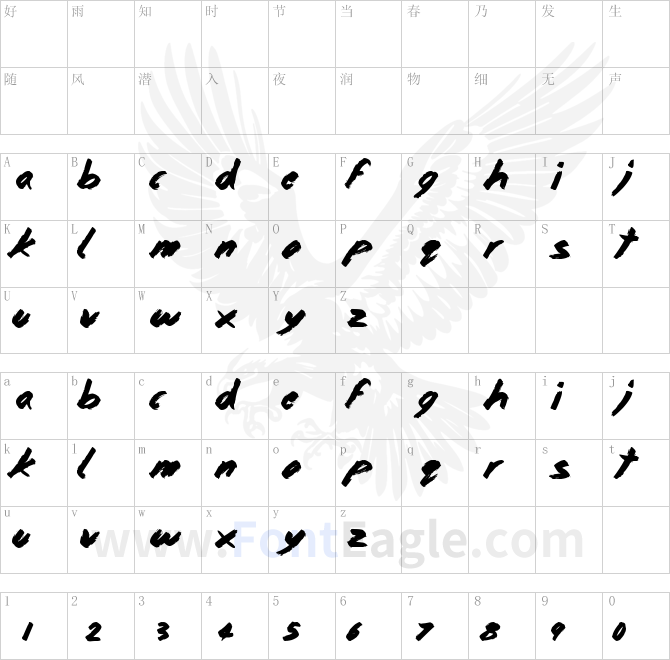
Home-and-Away is a great font, widely used in graphic design, single-page menu design, poster design and other fields, and is deeply loved by designers.Home-and-Away download.